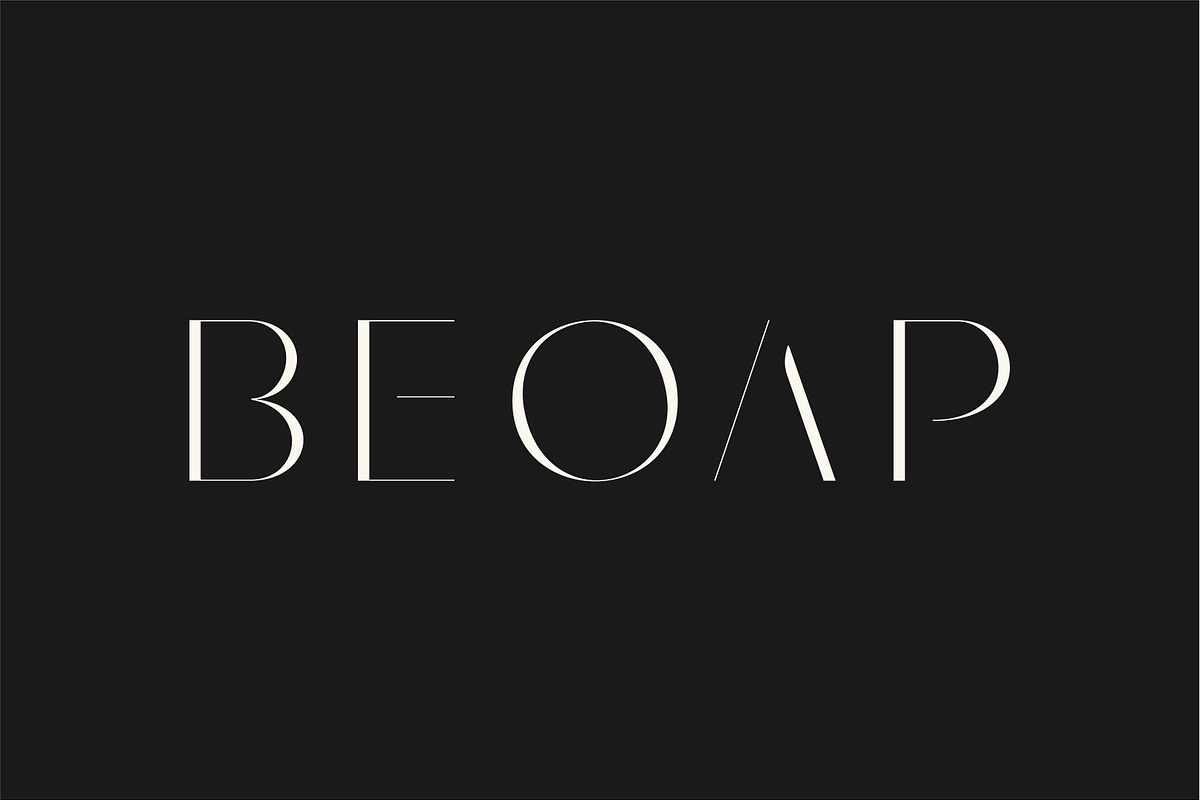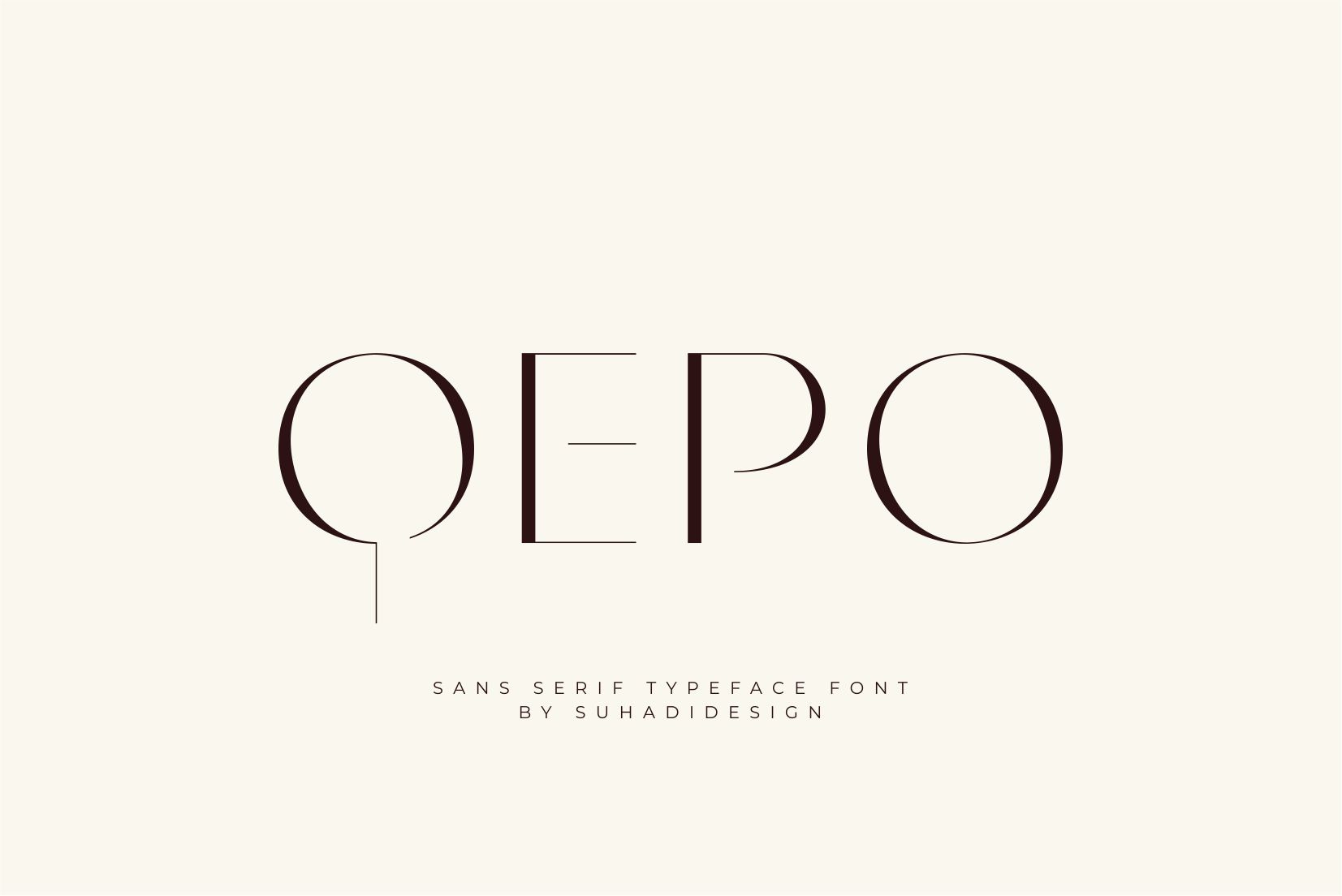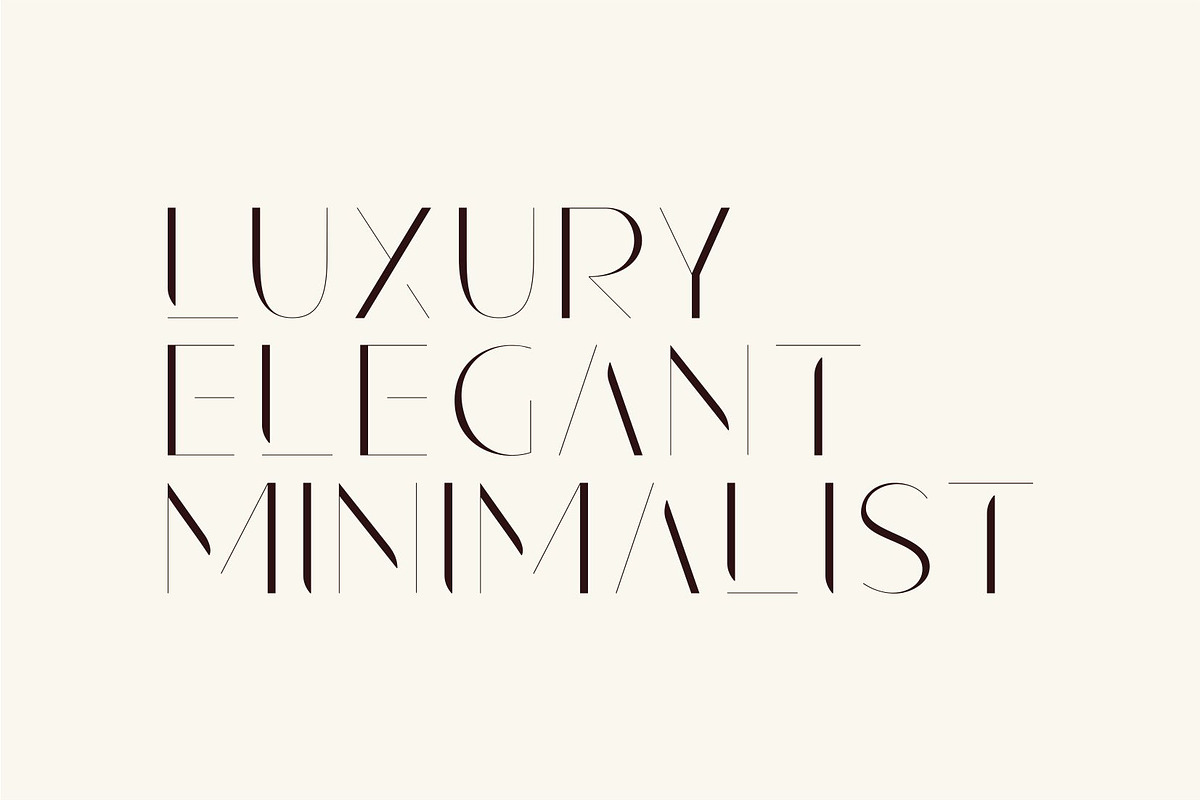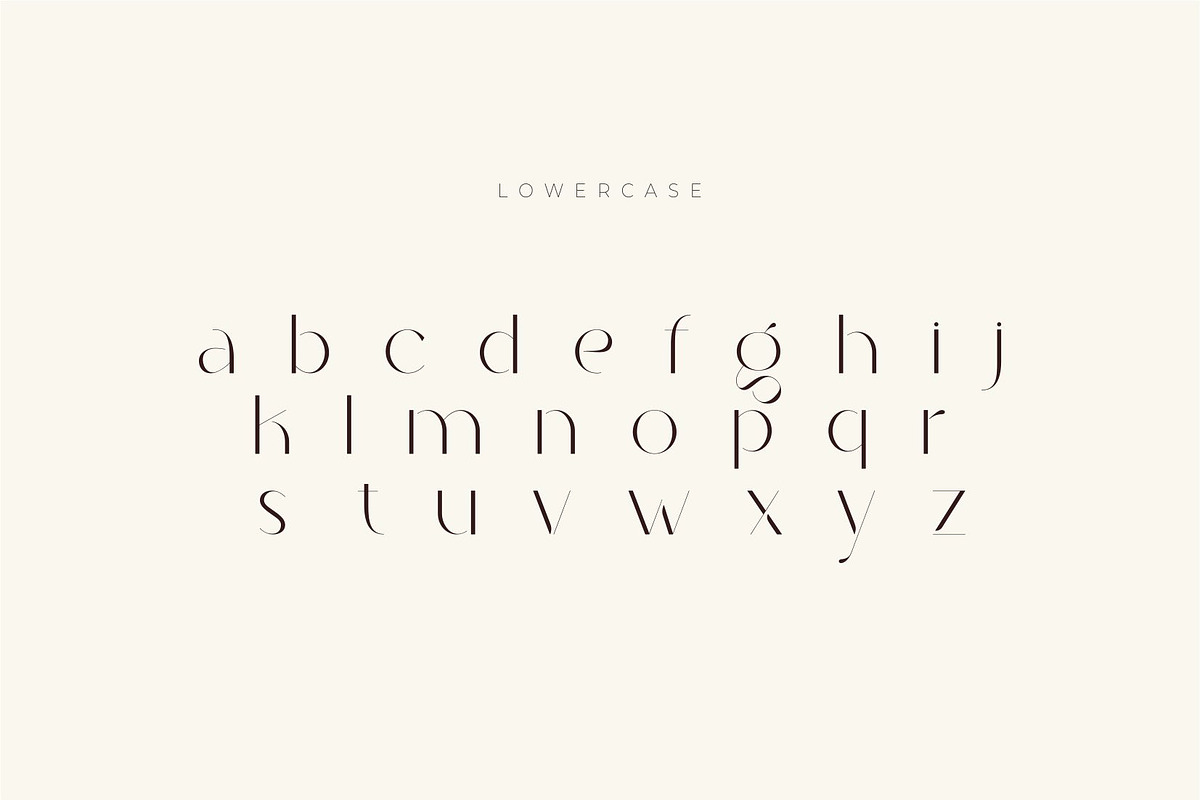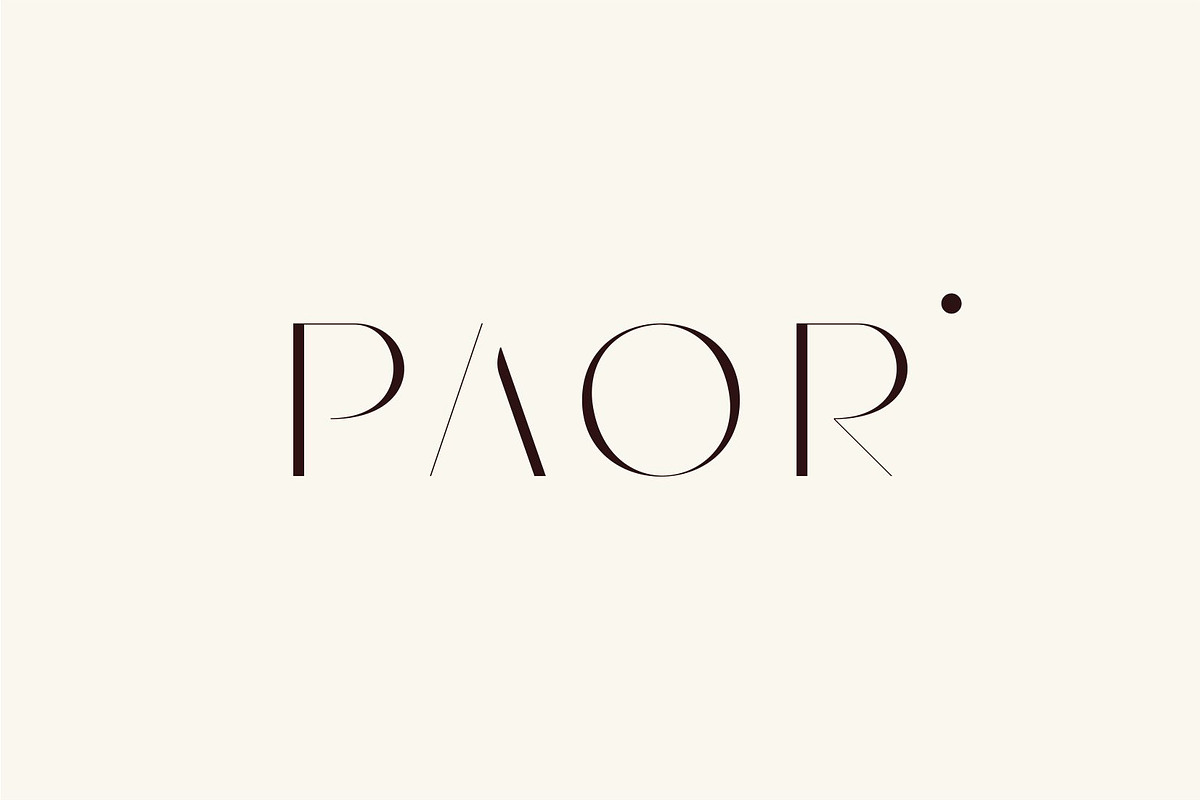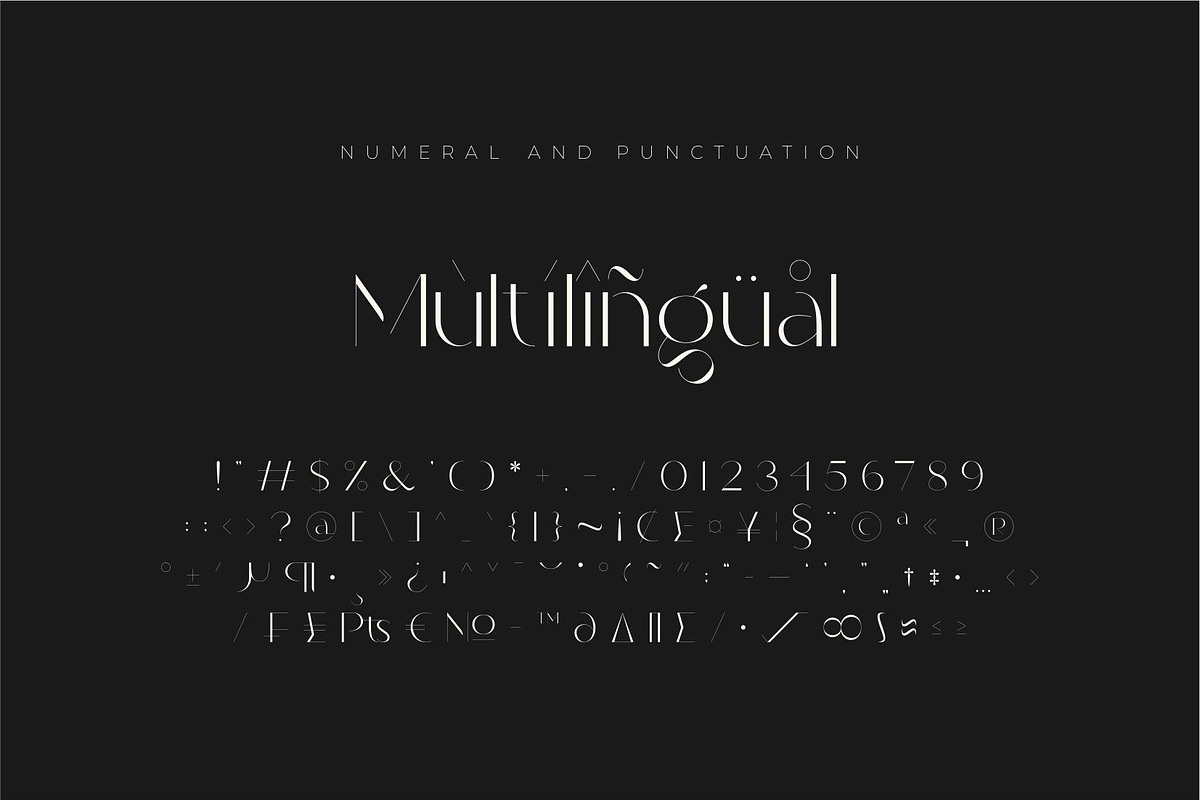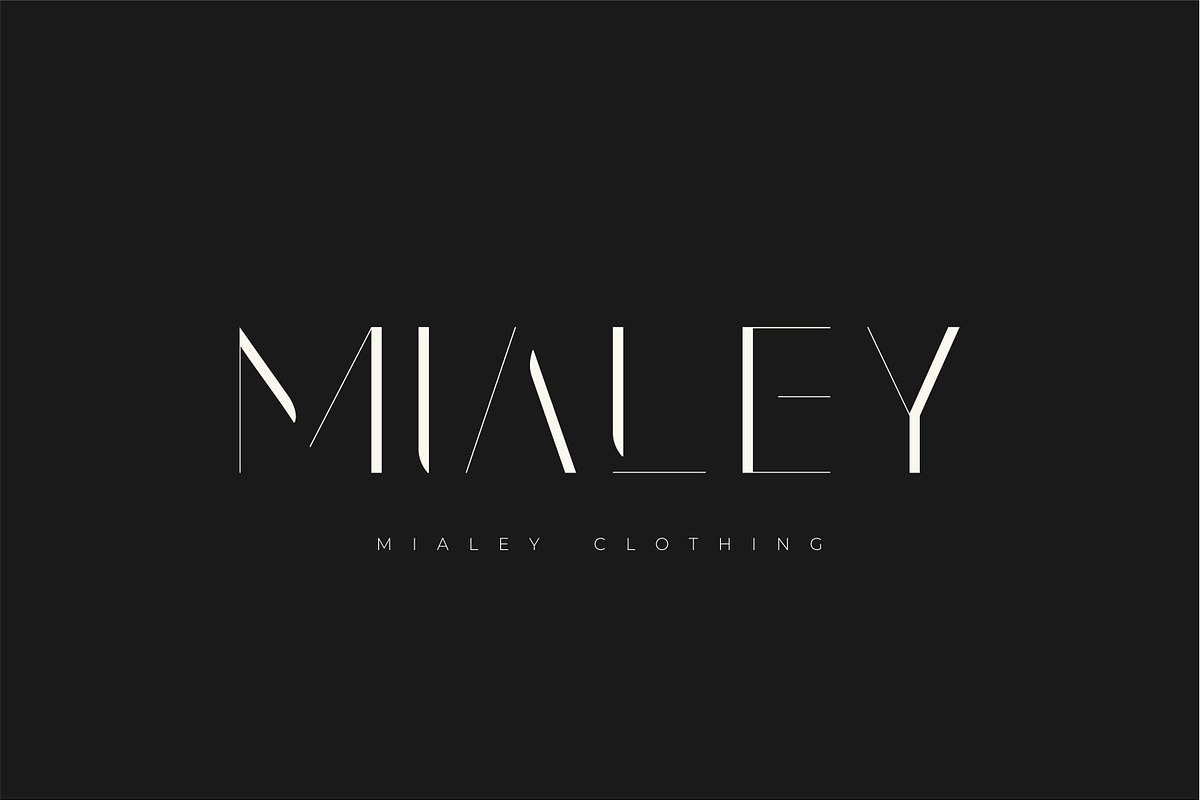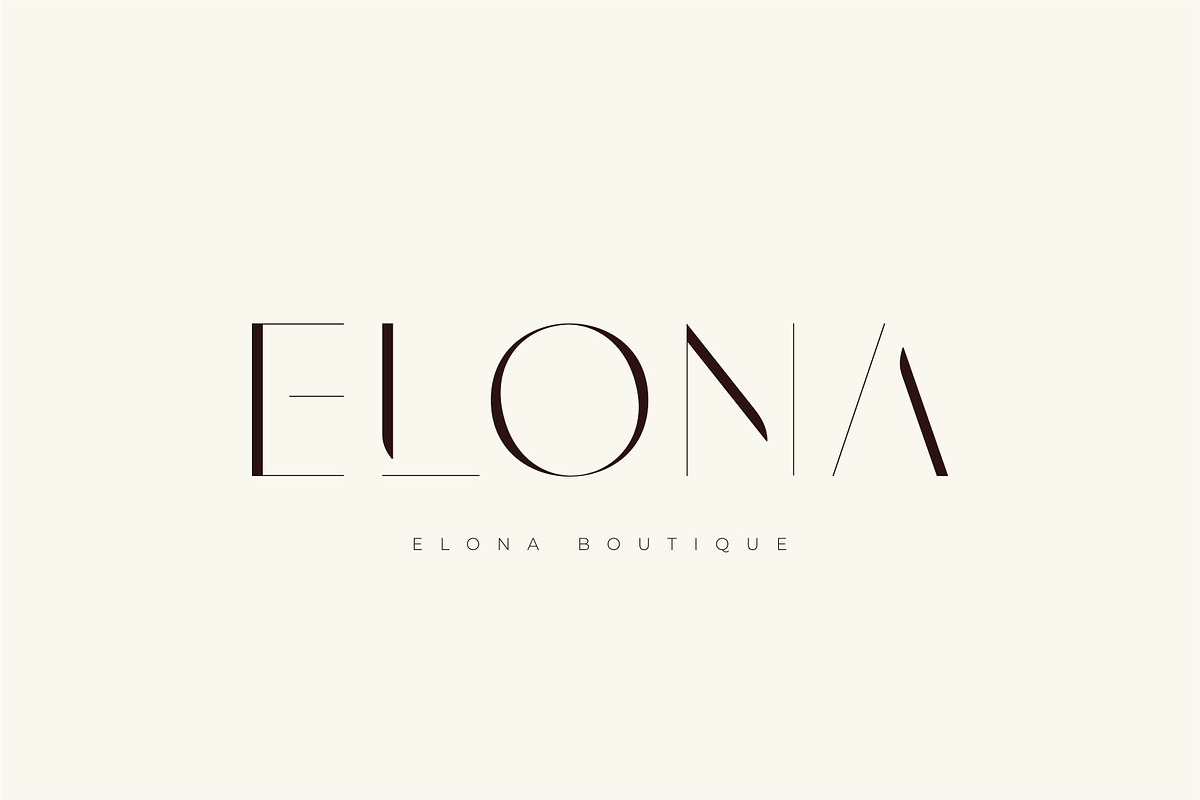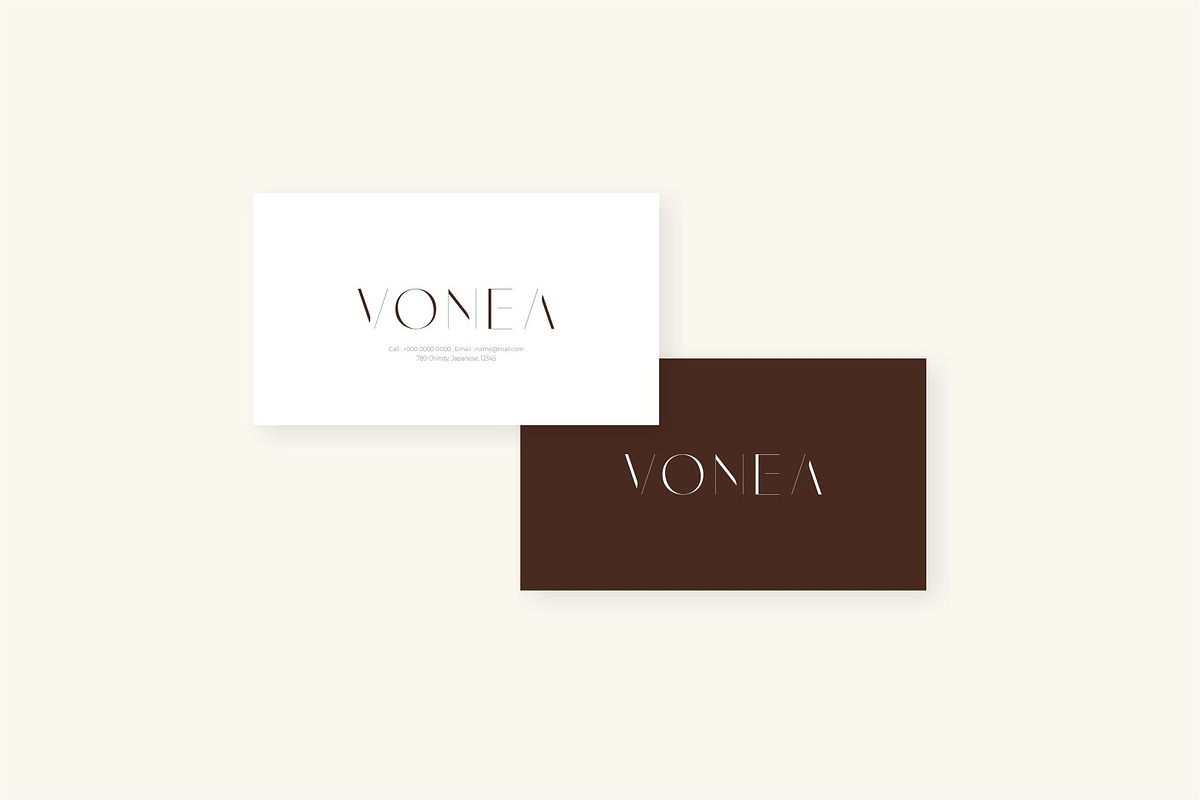
Qepo - Sans Serif Typeface Font
Hello, ladies and gentlemen! The latest stylish modern font has arrived, highly sought after by both men and women. This is the Qepo font. Qepo is a modern sans serif typeface. With its modern design and contemporary style, this font has become a favorite on the market. We've maintained this font's elegance, class, and style. Qepo is the perfect choice for magazines, designs, books, publications, branding, brand names, business cards, social media, classy designs, cosmetics, beauty, branding, logos, wordmarks, newspapers, branding, beauty, and other projects. The Qepo font is here to elevate the quality of your designs.